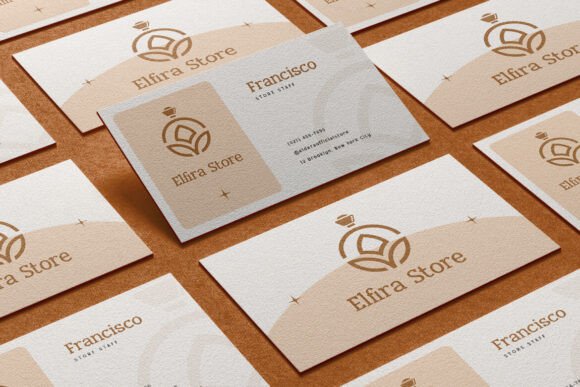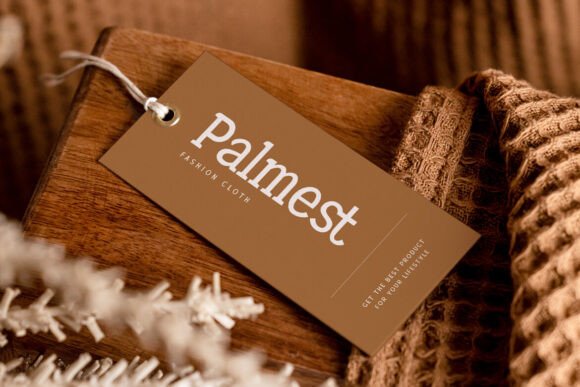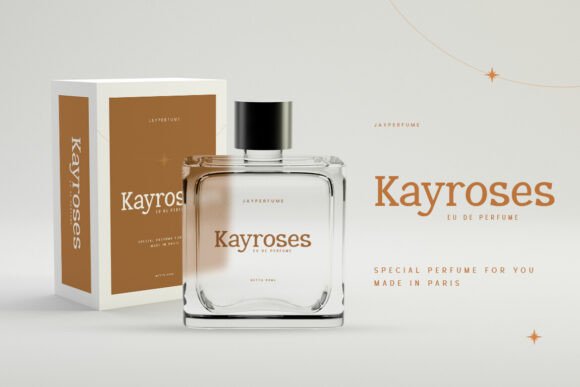
Introduction to Luminae Font
Meet Luminae, a hybrid typeface expertly fusing the uncomplicated sophistication of sans-serif with the timeless appeal of serif styles.
This versatile font is like a chameleon, effortlessly adapting and harmonising with any design scheme youโre working with Luminae stands out in its simultaneous conventional and modern appeal, making it an excellent choice for diverse projects.
Key Features of Luminae Font
Why Choose Luminae Font?
Luminae Font offers exceptional quality and versatility, making it a valuable addition to your design toolkit. Whether you’re creating for personal projects or commercial use, Luminae Font delivers professional results.